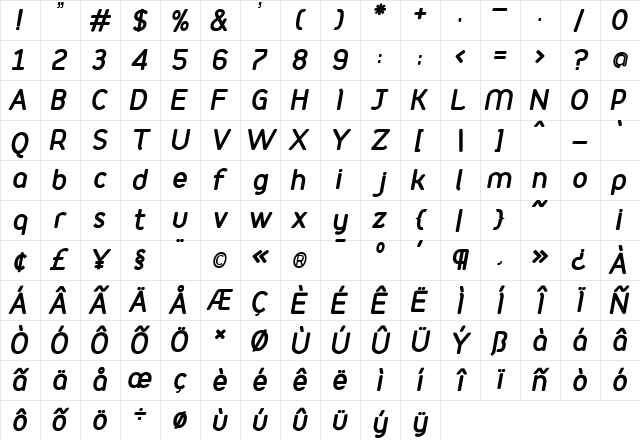
Podium Bold
Podium Family
Podium Bold
Design Context for Podium
Podium is a composed and adaptable typeface that performs quietly and consistently across a wide range of design contexts. Its bold stroke weight gives it real presence on the page.